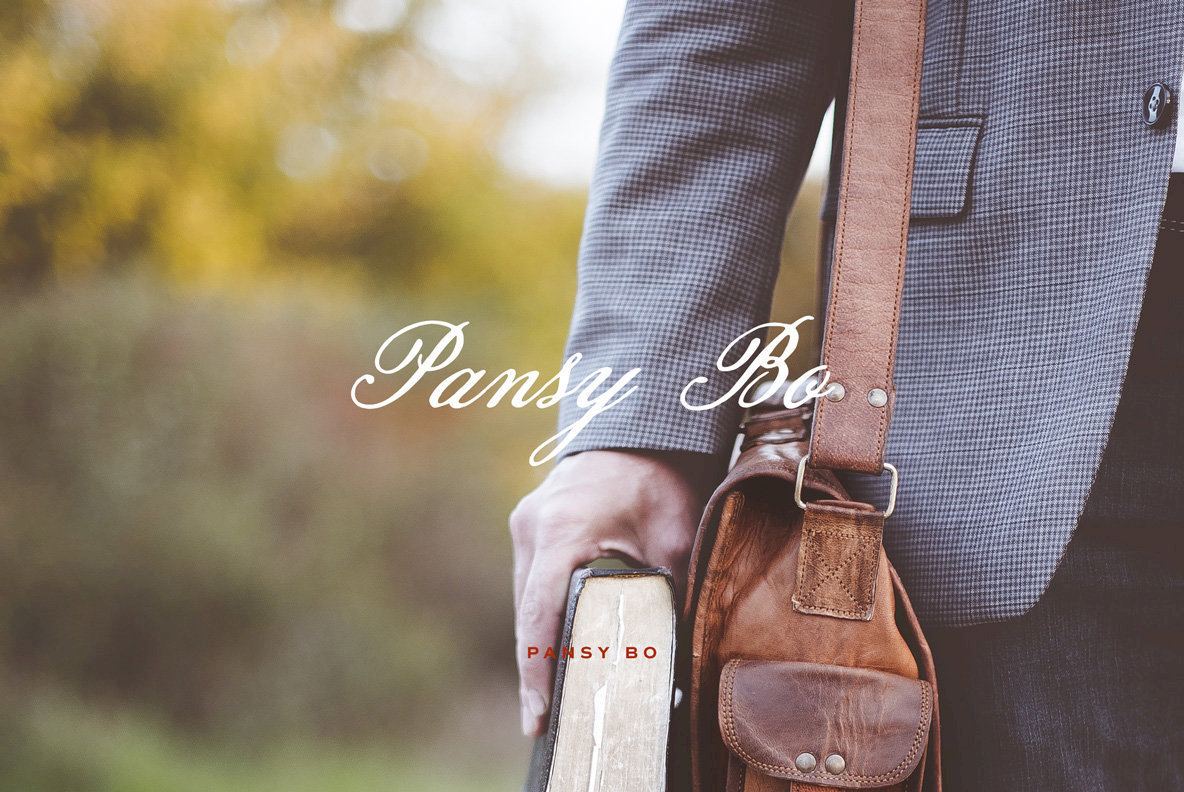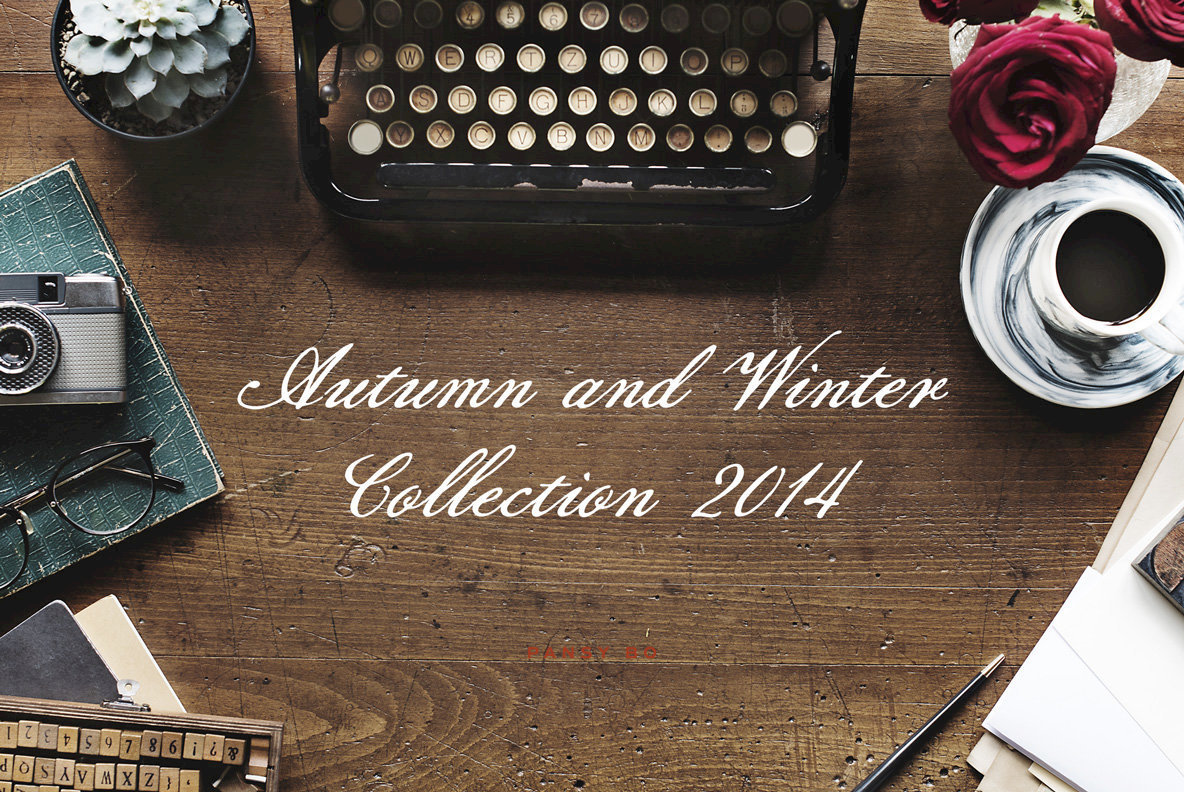
Pansy Bo
Pansy Bo is based on Hong Kong ladies script from the 19th century. Contains an inky texture that gives the feeling of realistic handwriting appearance.